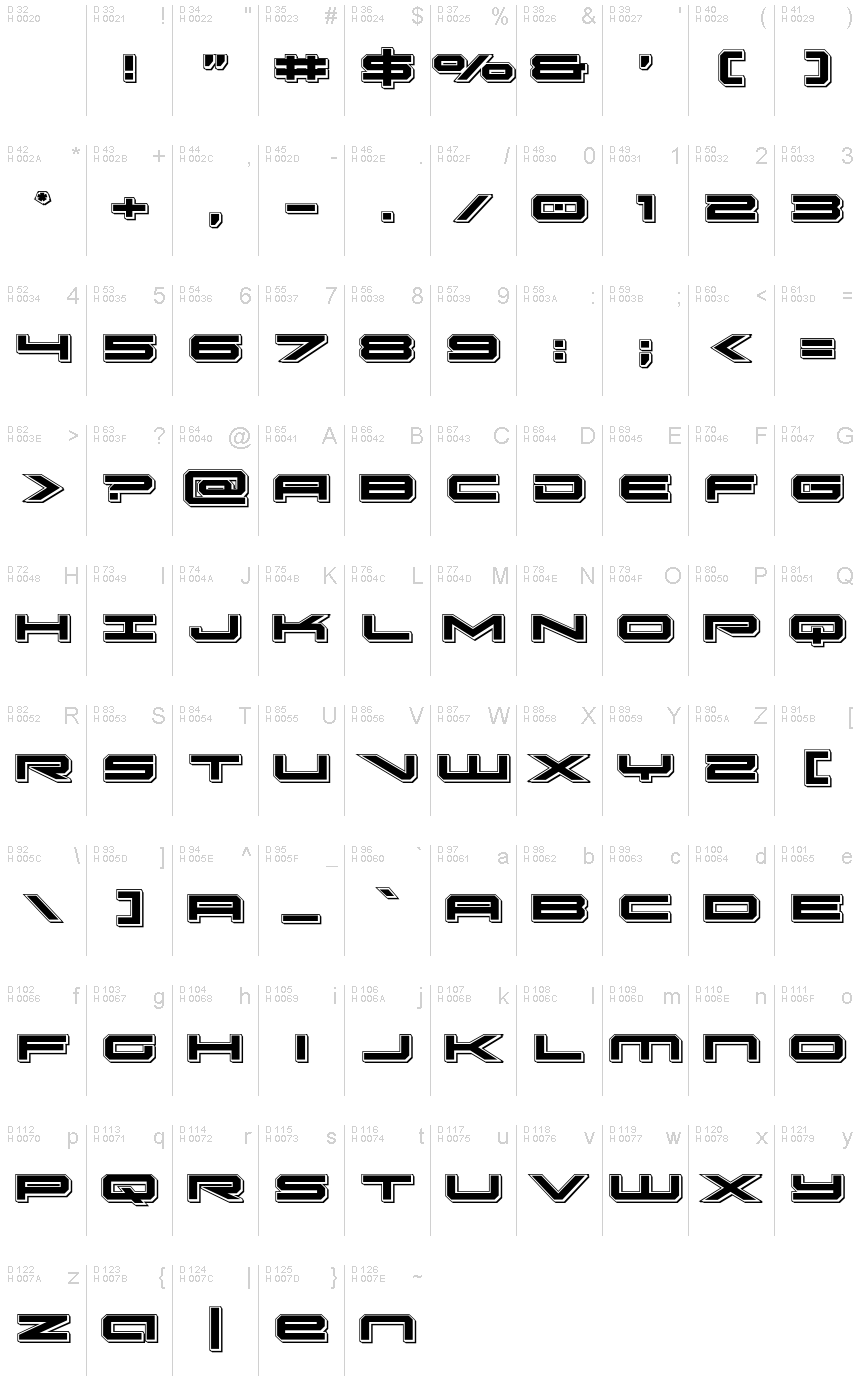
Oramac Punch
Oramac Punch is a captivating display font that radiates a futuristic allure. Designed by Daniel Zadorozny, this expanded typeface boasts a striking visual identity, with clean lines and an assertive presence.
The font's distinct geometric shapes and angular forms evoke a sense of technological sophistication, making it an excellent choice for bold branding, attention-grabbing headlines, and visually impactful design projects. Oramac Punch's versatility shines in a variety of applications, from sleek product packaging to dynamic digital interfaces, where its distinctive character can elevate the overall aesthetic.
This font's powerful visual language is poised to captivate audiences and leave a lasting impression.